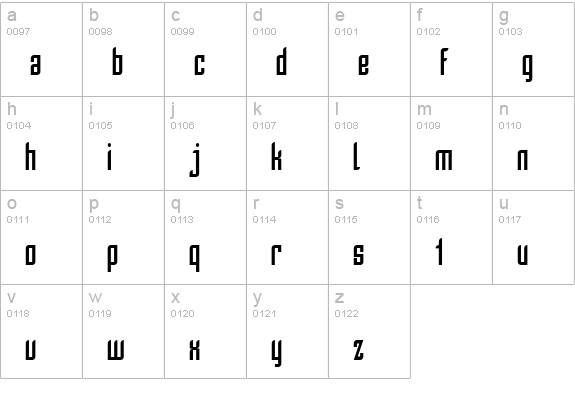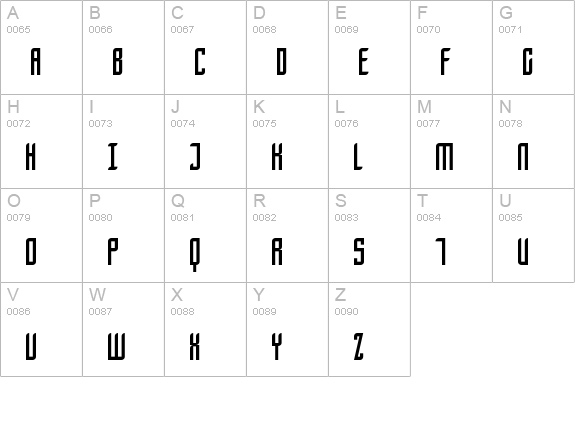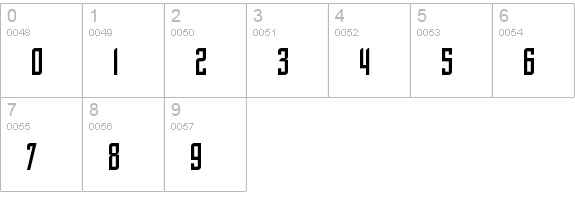
SF Piezolectric Condensed is a distinctive, condensed-width variant in the SF typeface family \xE2\x80\x94 well suited to design and typography projects.
SF Piezolectric Condensed is a stunning font that exudes a sense of modernity and sophistication. Its condensed design makes it perfect for projects that require a sleek and streamlined look. The letterforms are sharp and precise, with a unique twist that sets it apart from other condensed fonts. What makes SF Piezolectric Condensed even more remarkable is its use of piezoelectricity. This font harnesses the power of piezoelectric materials, which generate an electric charge when subjected to mechanical stress. The result is a font that pulsates with energy, giving your designs an electrifying and dynamic edge. With SF Piezolectric Condensed, you can effortlessly infuse your projects with a sense of innovation and creativity. Whether you're working on branding, web design, or print materials, this font will make a lasting impression on your audience. And the best part? It's free! SF Piezolectric Condensed is freely available to download at FontsMarket.com. Now you can elevate your designs without breaking the bank. Don't miss out on this opportunity to add a touch of electrifying style to your projects. Download SF Piezolectric Condensed today and unleash the power of piezoelectricity in your designs.